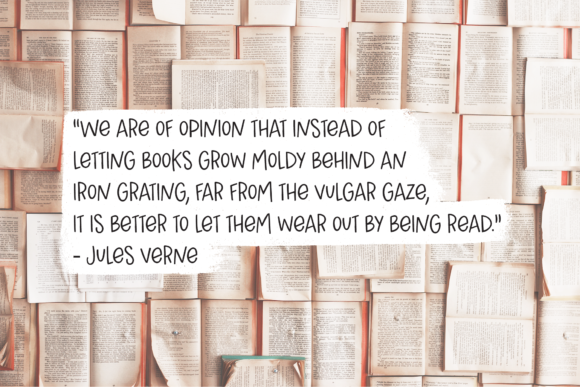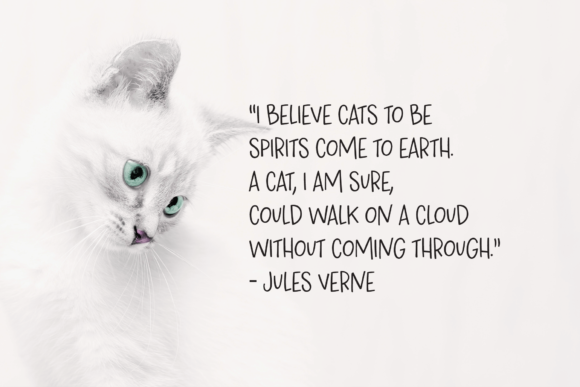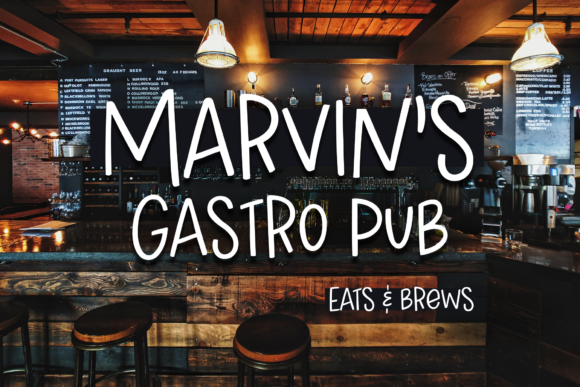
Introduction to Jules Thicket Font
As a designer, have you ever found yourself stuck in a creative rut, searching for the perfect font to bring your project to life? I know I have. There’s something magical about discovering a new typeface that sparks inspiration and sets your ideas ablaze. For me, that moment came when I stumbled upon the Jules Thicket Font. Its unique sans serif design and beautiful arrangement of letters instantly caught my attention, and I knew I had to share it with the world.
The Jules Thicket Font is a modern, high-quality design resource that’s perfect for both formal and non-formal designs. Its clean and elegant look makes it an ideal choice for creative projects that require a touch of sophistication. Whether you’re working on a free download or a paid project, this font is sure to elevate your design to the next level.
Key Features of Jules Thicket Font
- Unique, hand-drawn design with a natural, whimsical feel, ideal for creative projects and illustrations.
- High-quality font with a transparent background, allowing for easy layering and manipulation in design projects.
- Designed to be highly legible, with clear and distinct letterforms that work well in both print and digital applications.
- Includes a range of weights and styles, from light to bold, providing flexibility for designers to customize their creative project.
Honest Review: Jules Thicket Font
I recently had the chance to work with the Jules Thicket Font, and I must say it’s been a game-changer for my creative projects. This free download has been a valuable addition to my design resource library.
- High-quality typography: The Jules Thicket Font is crisp and clear, making it perfect for a wide range of creative projects.
- Transparency options: I love that the font offers a transparent background option, allowing me to customize it to fit my design needs.
- Easy to use: The font is incredibly easy to use, even for complex design projects.
- Limited customization options: While the font is high-quality, it does lack some customization options that I would have liked to see.
- Not ideal for small text: The font can become difficult to read when used for small text sizes.
Overall, I’m really impressed with the Jules Thicket Font. It’s a fantastic design resource that I would highly recommend to anyone looking for a high-quality, free font. With its transparent background options and crisp typography, it’s perfect for a wide range of creative projects.
Introduction to Jules Thicket Font
The Jules Thicket Font is a high-quality design resource that offers a unique and creative touch to any project. With a transparent background, it can be easily integrated into various design platforms.
Tips for Getting the Most Out of Jules Thicket Font
To get the most out of the Jules Thicket Font, experiment with different font sizes, colors, and combinations. This font pairs well with other creative fonts and can add a unique touch to any project.
Common Use Cases for Jules Thicket Font
The Jules Thicket Font is commonly used in creative projects such as branding, logos, and marketing materials. Its unique design and high quality make it an excellent choice for designers looking to add a creative touch to their work.